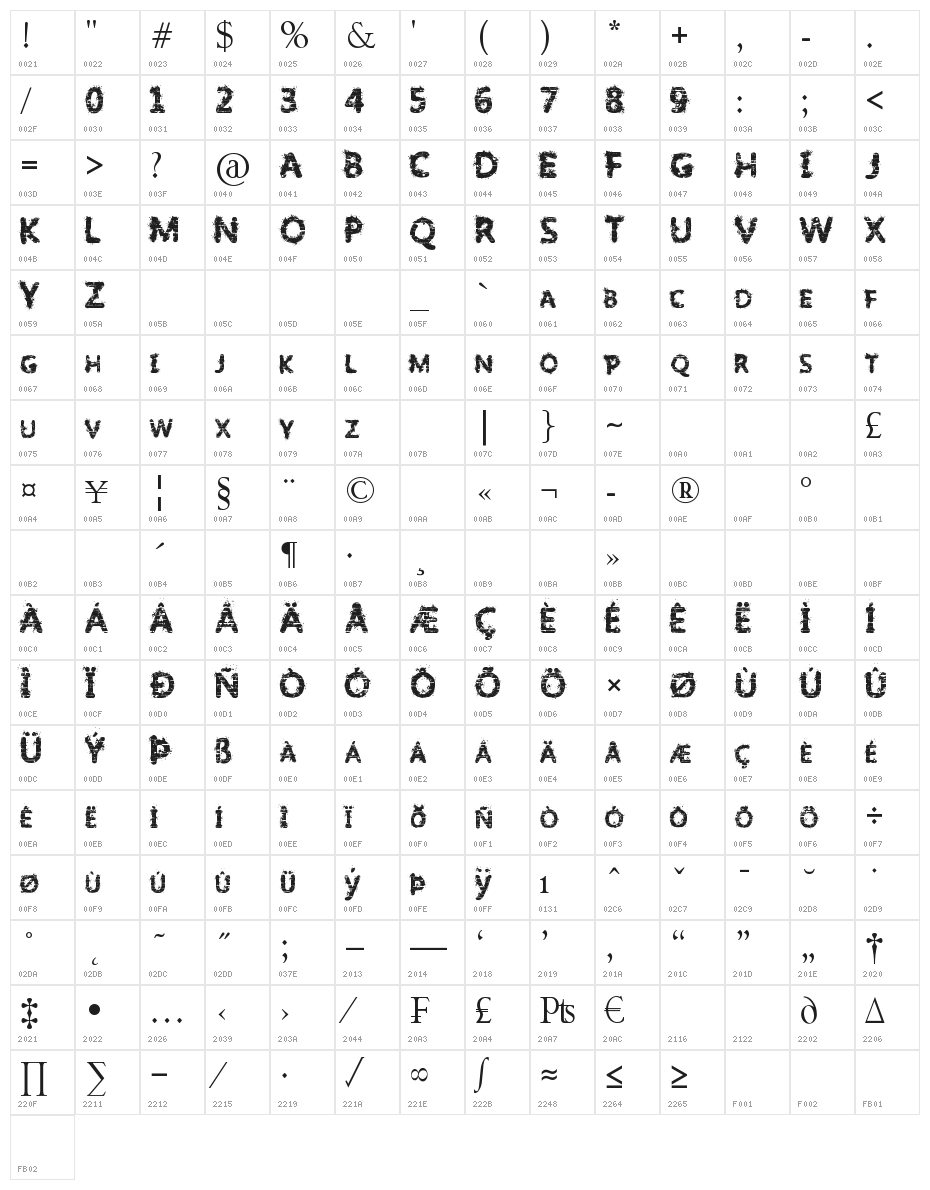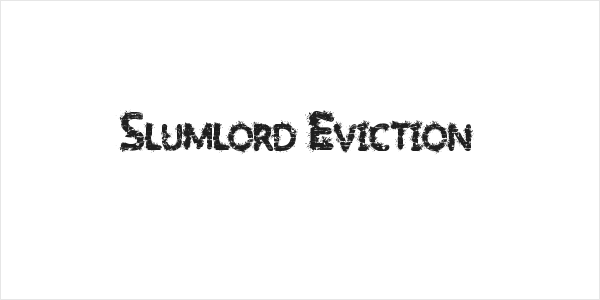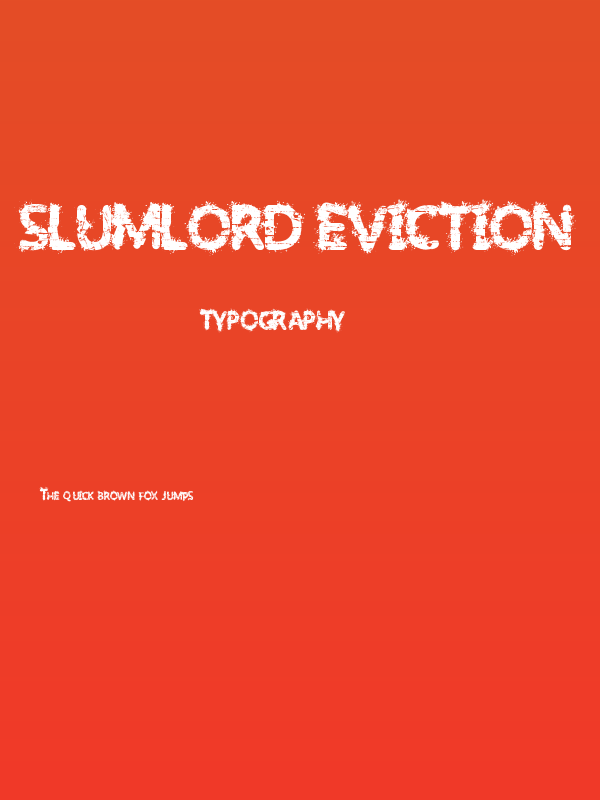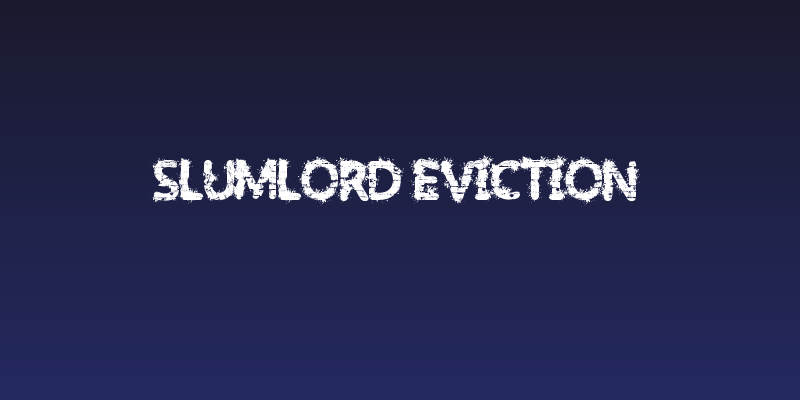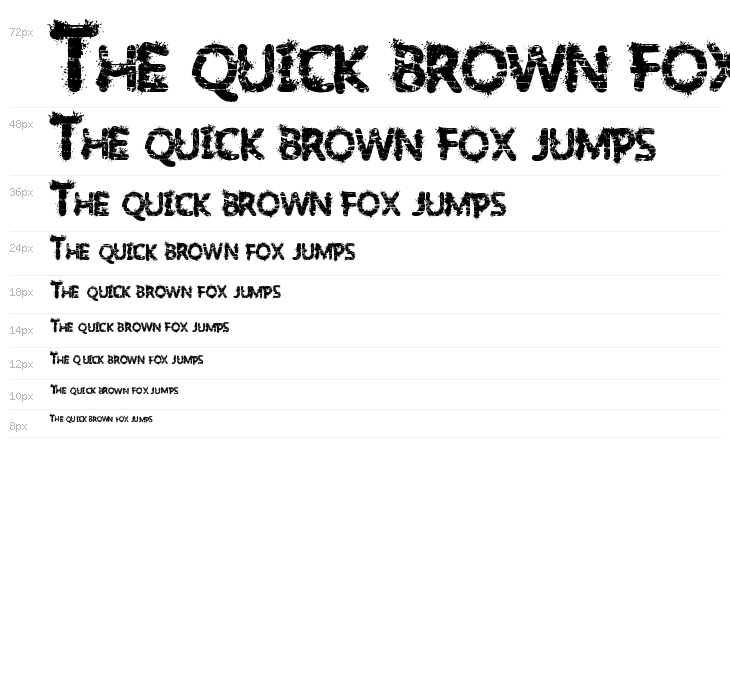
Slumlord Eviction Font
Slumlord Eviction Description
This font features a rugged, distressed appearance with a grunge texture that gives it a worn and weathered look. The characters are bold and impactful, with irregular edges and a rough surface that suggests a sense of decay or urban grit. The uppercase and lowercase letters maintain a consistent style, while the numbers and special characters complement the overall aesthetic. This font is ideal for projects that require a raw, edgy feel, such as music album covers, posters, or streetwear branding. Its unique style makes it stand out, capturing attention with its bold and gritty personality.
Overall StyleGrunge, Urban, Edgy
Proposed ProjectsIdeal for music album covers, edgy posters, streetwear branding, and urban-themed designs.